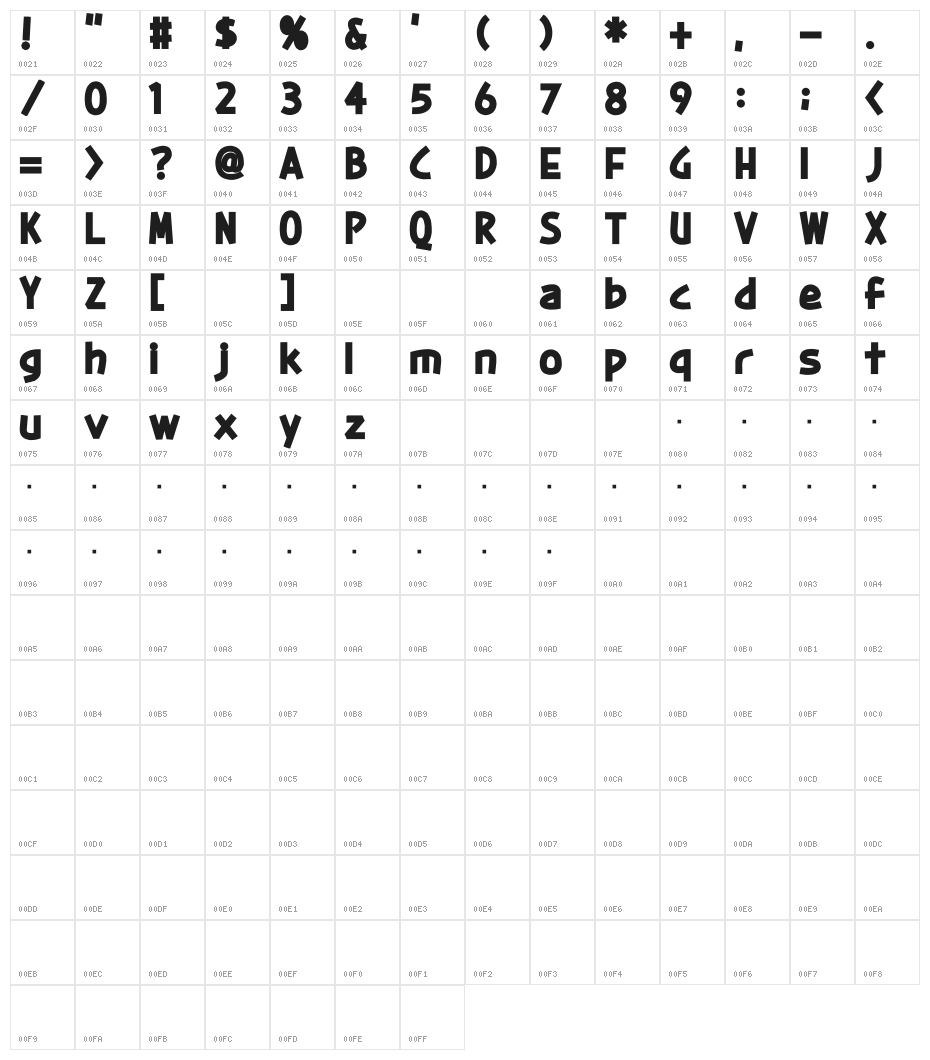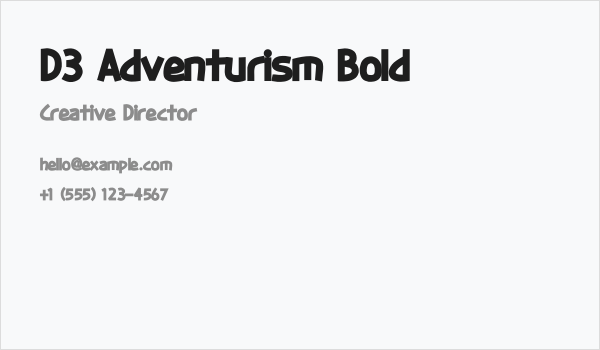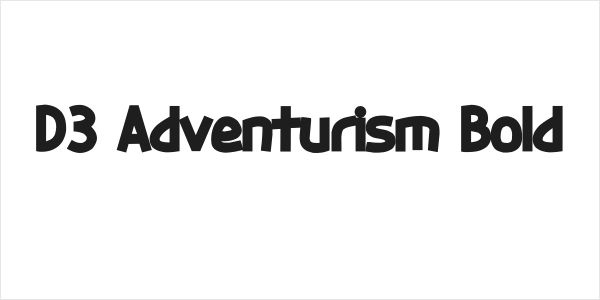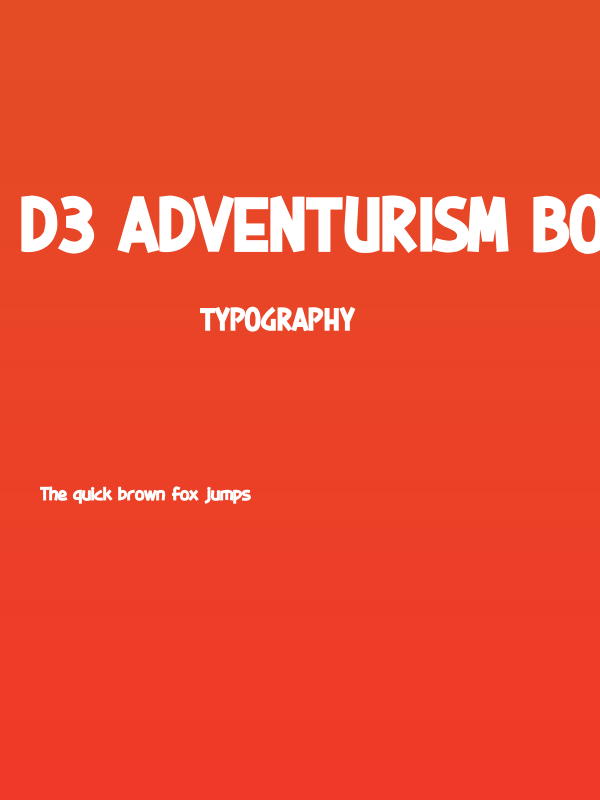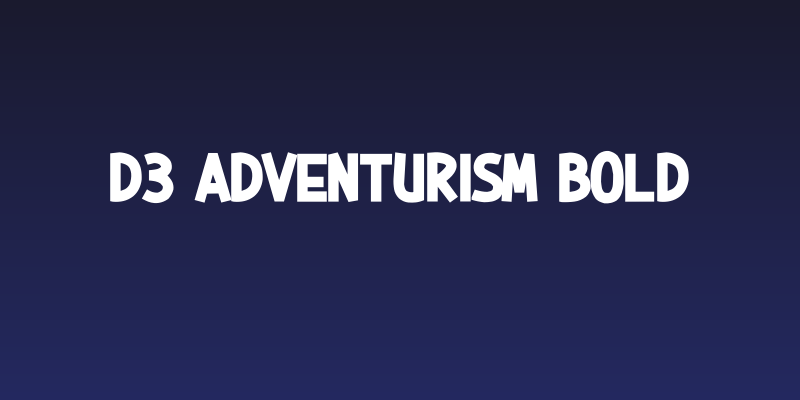
D3 Adventurism Bold Font
D3 Adventurism Bold Description
This font features bold, dynamic characters with a playful and adventurous style. The uppercase letters are robust and slightly angular, giving a sense of movement and energy. The lowercase letters maintain this boldness while introducing a more rounded and friendly appearance. Numbers are equally bold and consistent with the overall style, ensuring readability and impact. Special characters are designed to complement the alphabet, maintaining the same bold and energetic aesthetic. This font is perfect for projects that require a strong, eye-catching display.
| Proposed Projects | Ideal for posters, headlines, branding, and any project that requires a strong visual impact. |